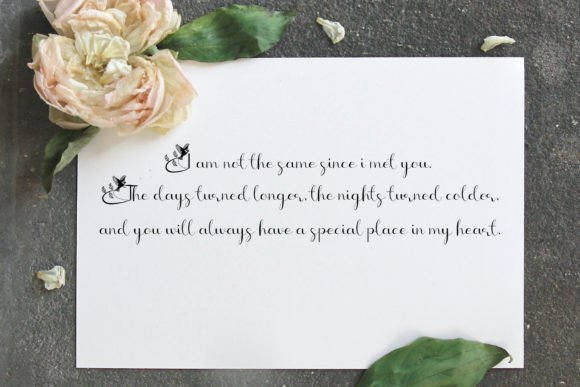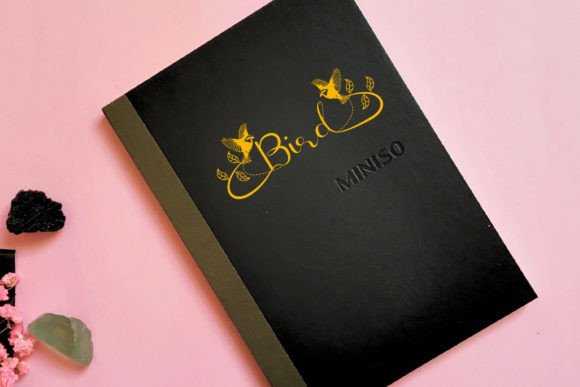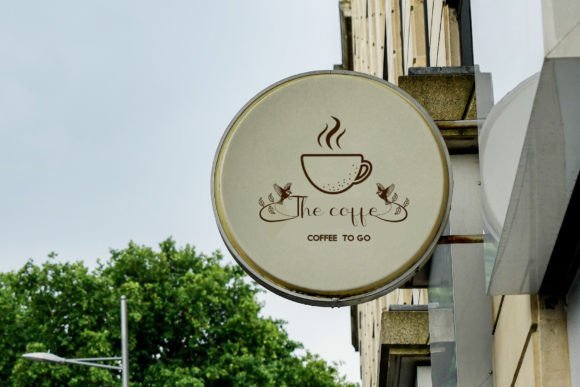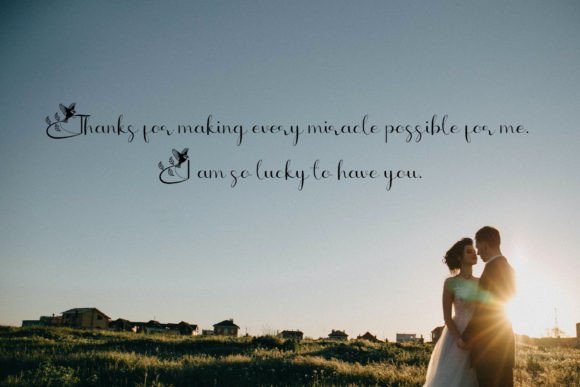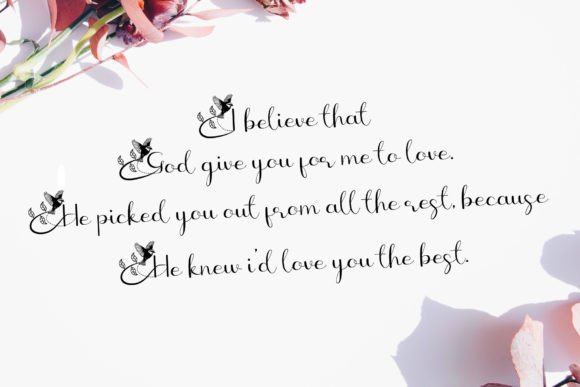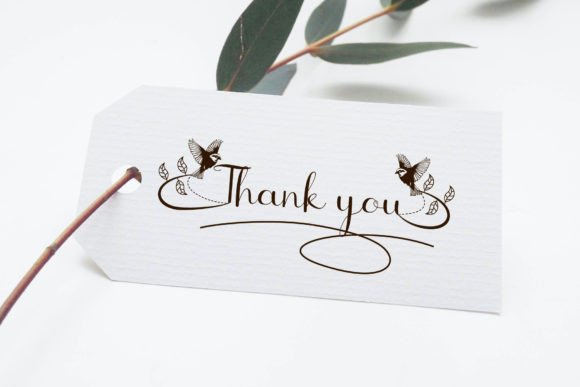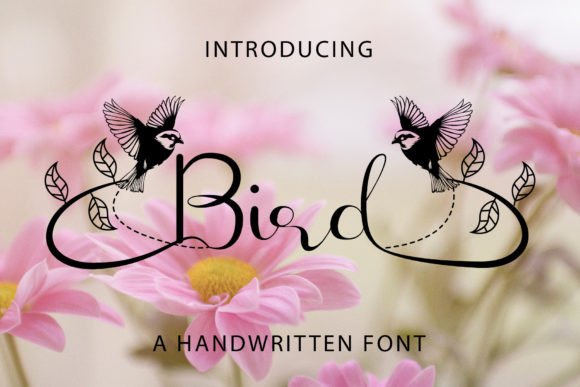
The Bird Font: A Stylish and Elegant Decorative Handwritten Font
Have you ever been in the middle of a design project, and suddenly, you just can’t seem to find the right font? I recall a particularly frustrating experience while working on a wedding invitation design. My client wanted something elegant and sophisticated, but everything I tried seemed either too bland or too over-the-top. That’s when I stumbled upon the Bird font, and it completely transformed my design.
A Personal Review: What I Love About Bird Font
The Bird font is a stylish and incredibly elegant decorative handwritten font that has become a staple in my design toolkit. Here’s what I love about it:
- ✨ Elegant and sophisticated: Bird font is perfect for designs that require a touch of luxury and refinement.
- ✅ Highly versatile: It looks stunning on wedding invitations, thank you cards, quotes, greeting cards, logos, business cards, and more.
- 💡 PUA encoded: This means you can access all of the glyphs and alternates with ease, giving you a wide range of creative possibilities.
While the Bird font is an excellent choice for many designs, there are a few minor quirks to be aware of:
- ⚠️ Limited use for body text: Due to its elegant and cursive nature, the Bird font may not be the best choice for lengthy body text.
- 🤔 May require adjustments for digital use: Some users have reported that the font may need slight adjustments for optimal use on digital platforms.
The Designer Inspiration Behind Bird Font
The Bird font was designed with the intention of creating a beautiful, elegant script font that captures the essence of handwritten calligraphy. The designer aimed to create a font that would be perfect for formal designs, such as wedding invitations, luxury branding, and high-end marketing materials. With its intricate details and flowing lines, the Bird font is sure to add a touch of sophistication and refinement to any design.
| What is the Bird font best used for? | The Bird font is best used for designs that require a touch of elegance and sophistication, such as wedding invitations, thank you cards, quotes, greeting cards, logos, and business cards. |
| Is the Bird font PUA encoded? | Yes, the Bird font is PUA encoded, which means you can access all of the glyphs and alternates with ease. |